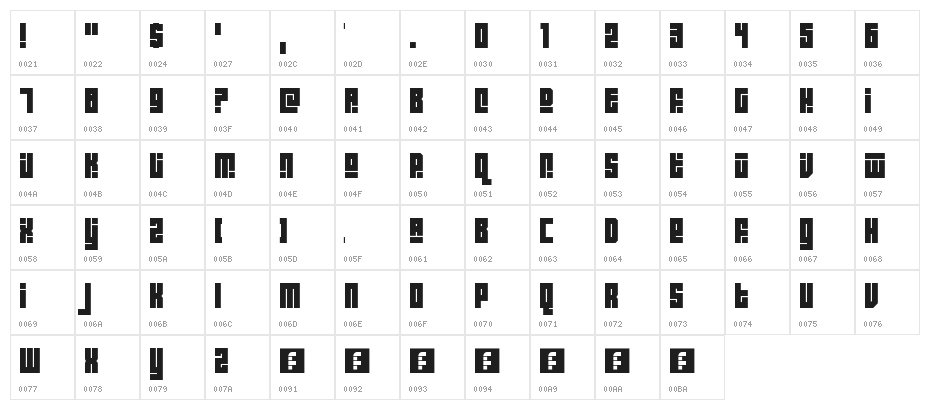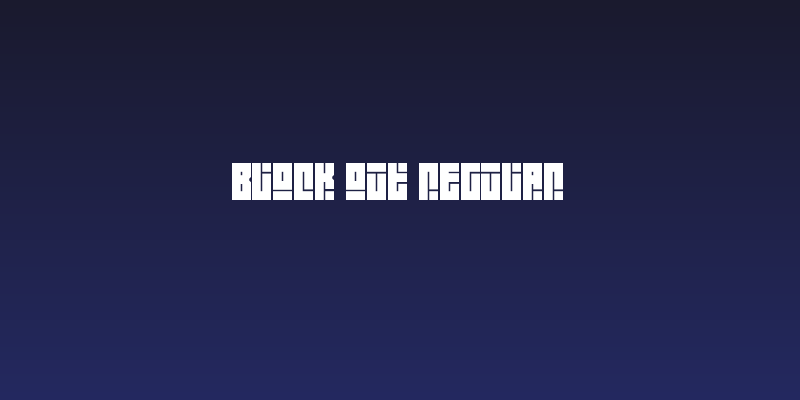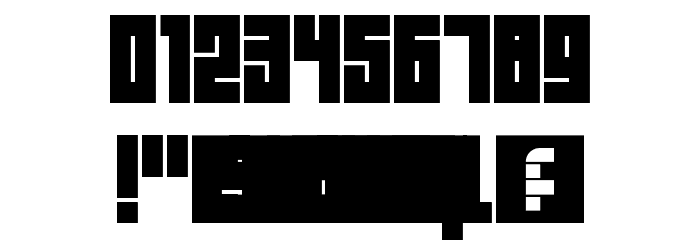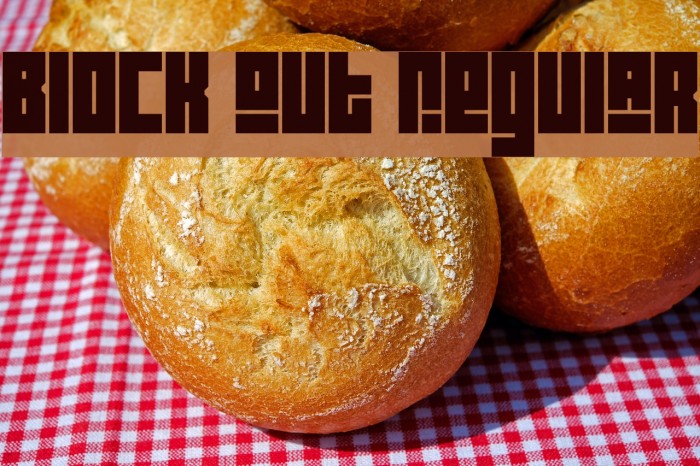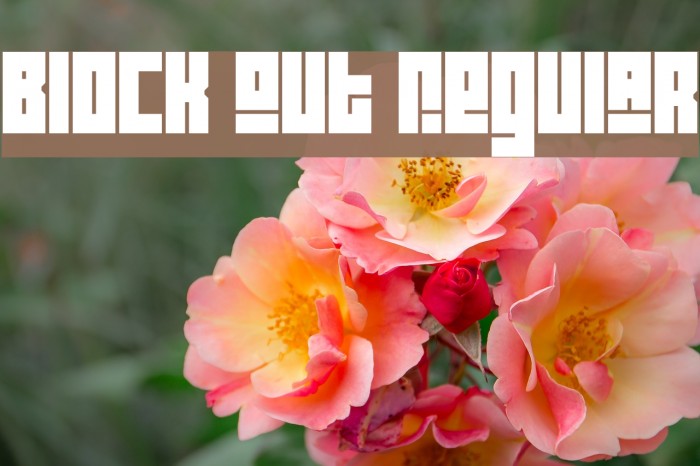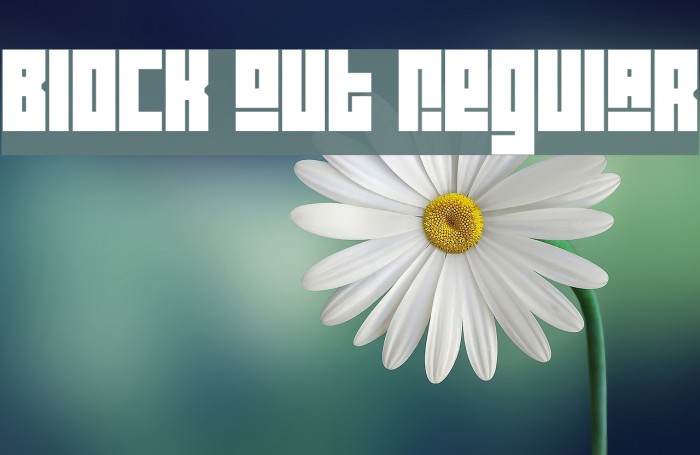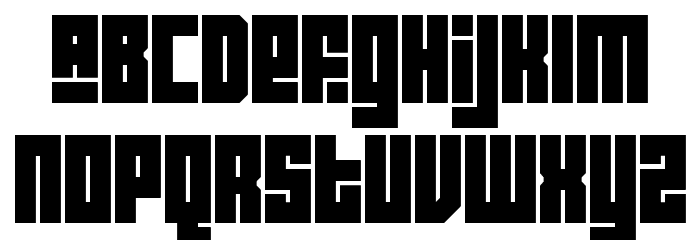
Block Out Regular Font
Block Out Regular Description
This font features a bold and geometric design, characterized by its blocky and angular shapes. Each character is constructed with thick, uniform strokes, creating a strong and impactful visual presence. The uppercase and lowercase letters maintain a consistent height, contributing to a cohesive and structured appearance. The numerals and special characters follow the same geometric style, ensuring uniformity across all glyphs. The font's design is reminiscent of digital or pixel art, making it ideal for projects that require a modern and edgy aesthetic.
| Proposed Projects | Ideal for digital art, video game design, posters, and any project requiring a modern, edgy look. |